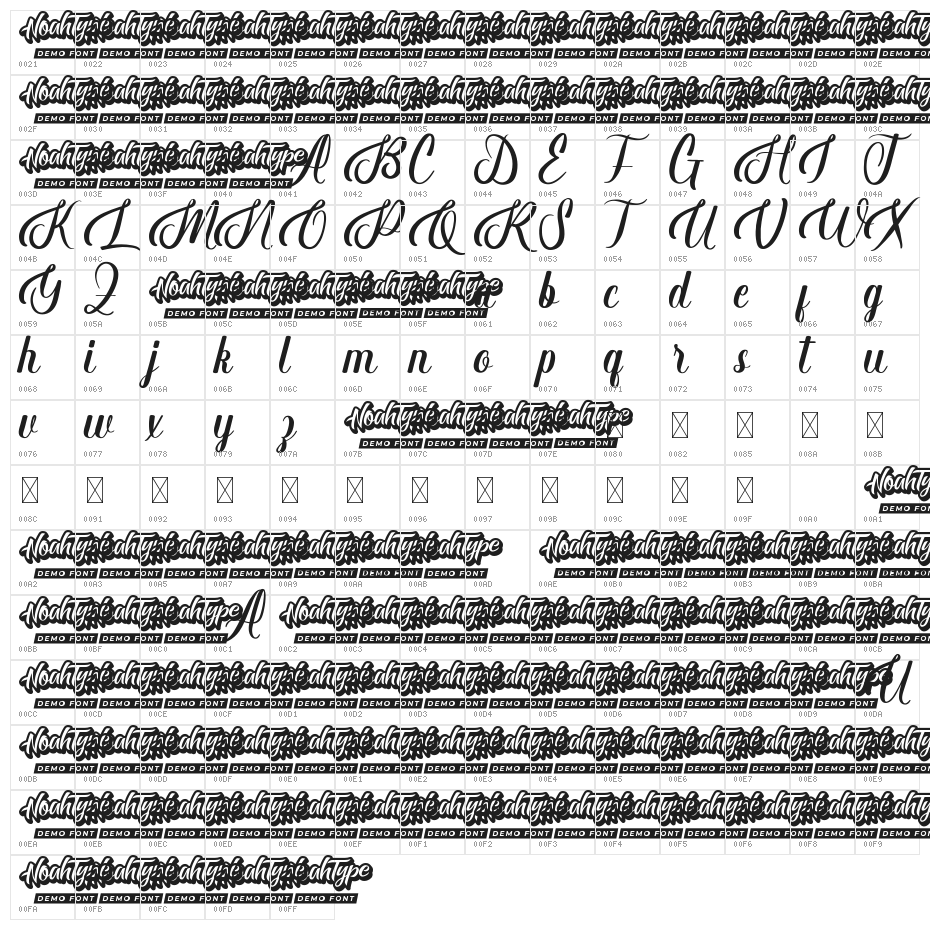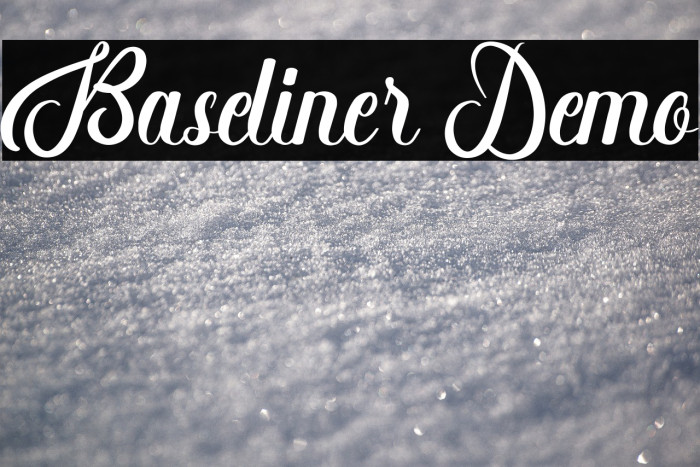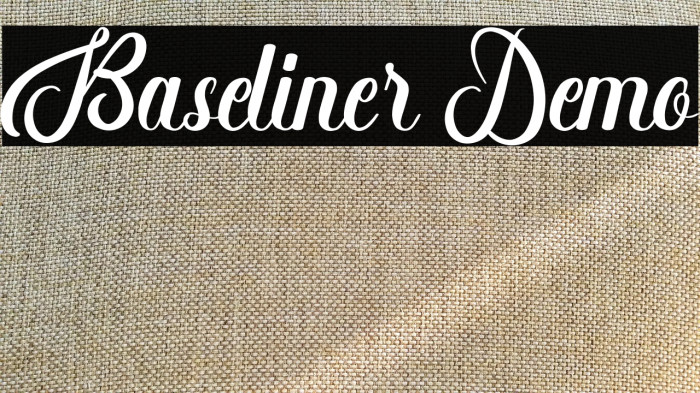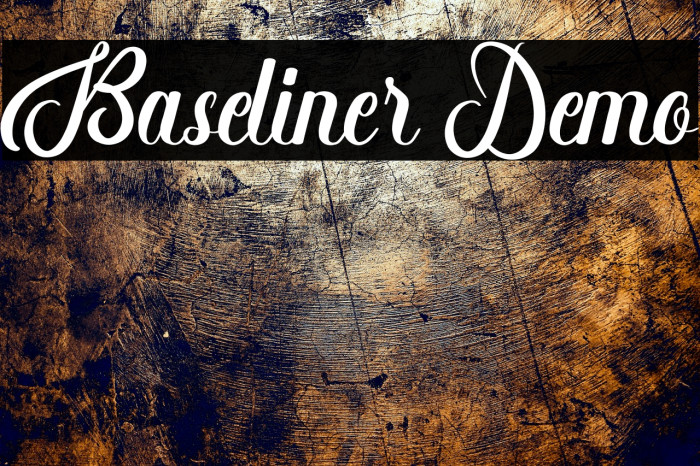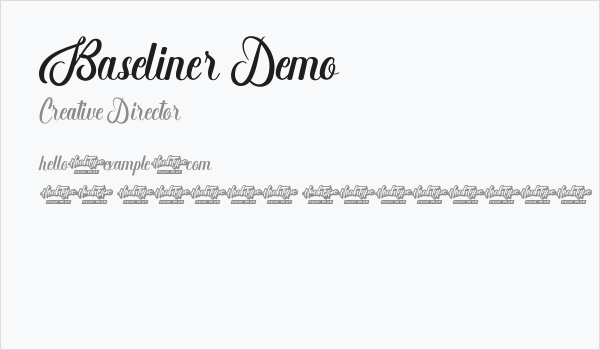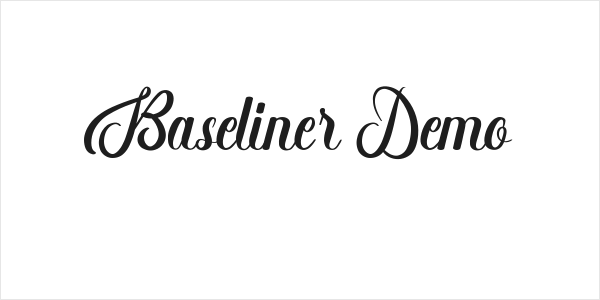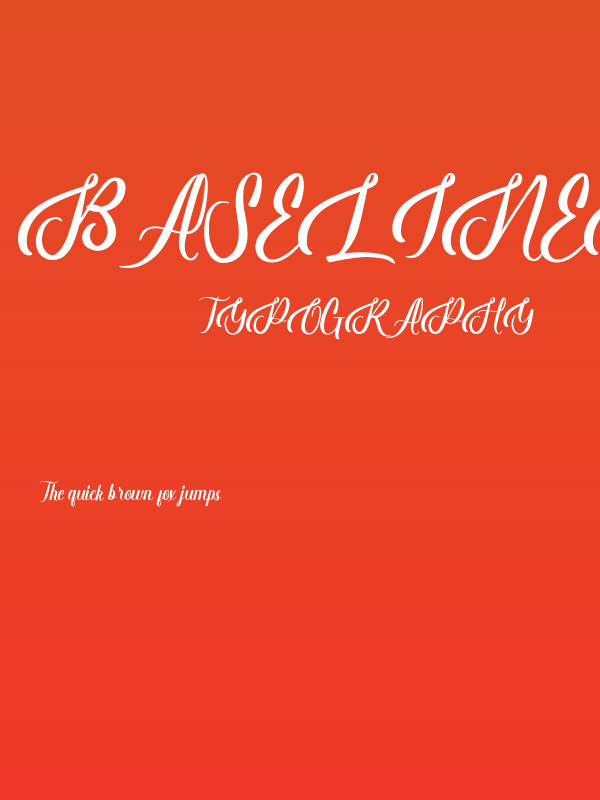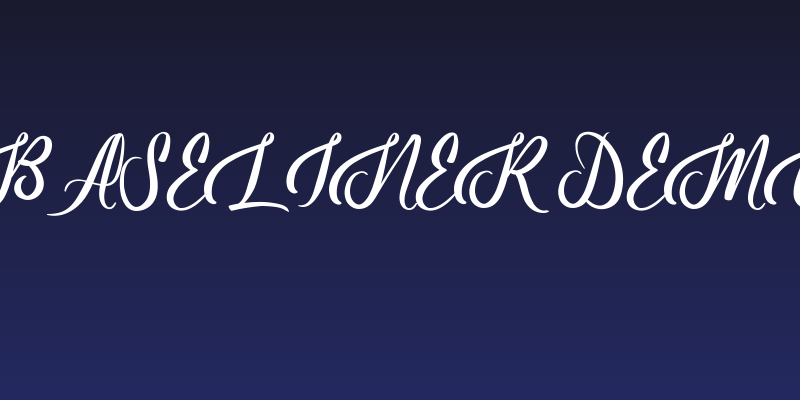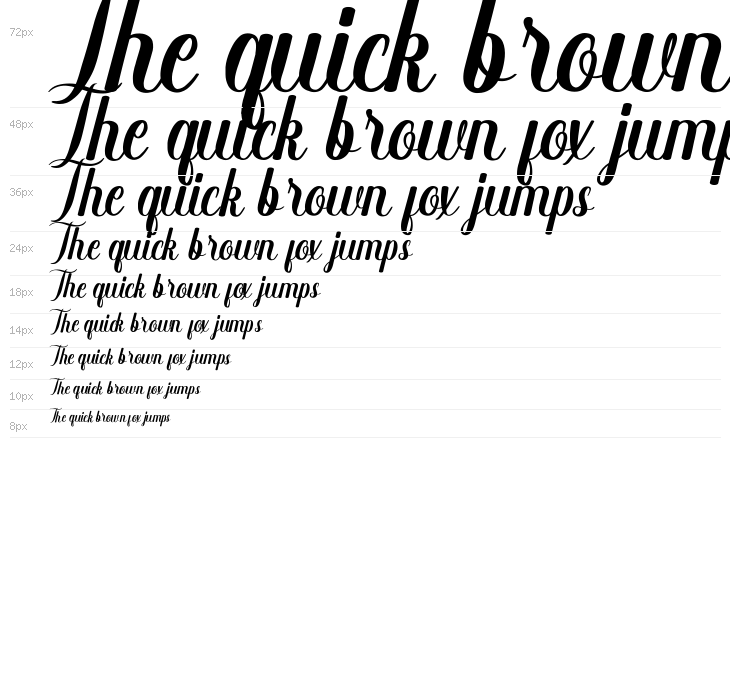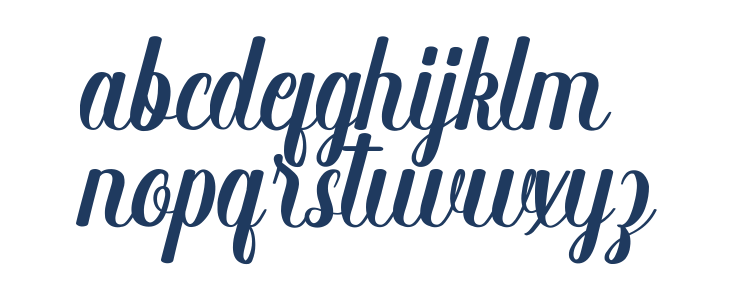
Baseliner Demo Font
Baseliner Demo Description
This font features an elegant and flowing script style, characterized by its smooth, cursive letterforms that exude a sense of sophistication and grace. The uppercase letters are ornate, with intricate loops and swirls, while the lowercase letters maintain a consistent fluidity and rhythm. The font's design is reminiscent of traditional calligraphy, yet it incorporates modern elements that make it versatile for contemporary use. The strokes vary in thickness, providing a dynamic contrast that enhances readability while maintaining an artistic flair. This font is ideal for projects that require a touch of elegance and refinement, such as wedding invitations, branding, or high-end product packaging.
| Overall Style | Elegant, Calligraphic |
| Proposed Projects | Wedding invitations, luxury branding, product packaging, elegant logos, and decorative headings. |